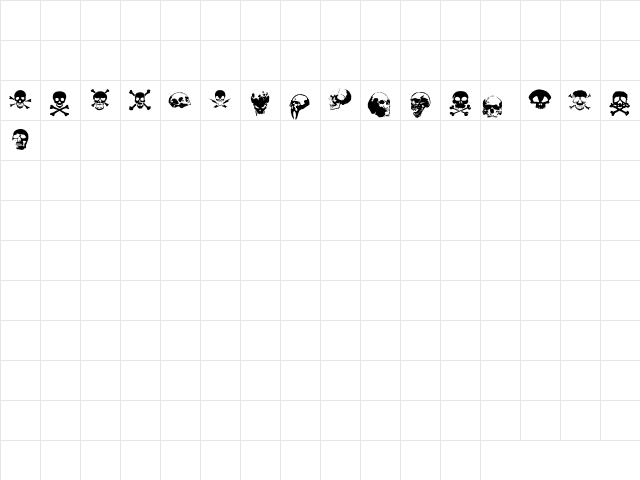
TotenKopf is a composed and adaptable typeface that performs quietly and consistently across a wide range of design contexts.
Pro Tip: Use TotenKopf in both headline and body roles to test its range before committing to a single application.